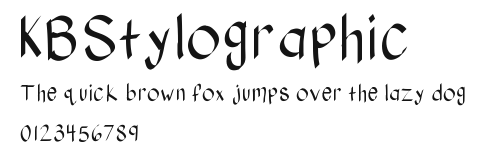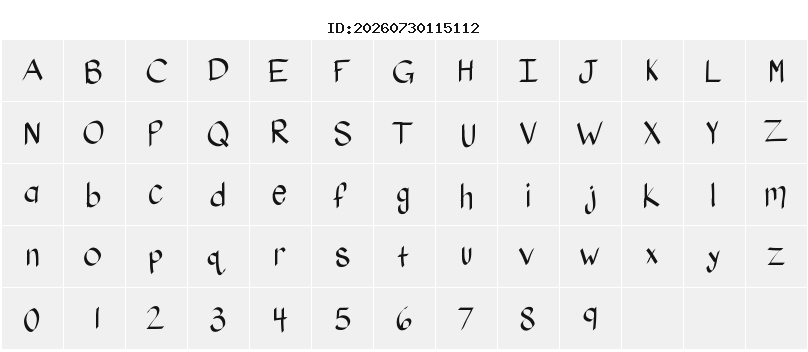
• Font Name: KBStylographic
About KBStylographic.ttf
KBStylographic.ttf is a modern, elegant sans-serif font designed for ultimate readability and visual harmony. Perfect for branding, headlines, web design, and print materials.